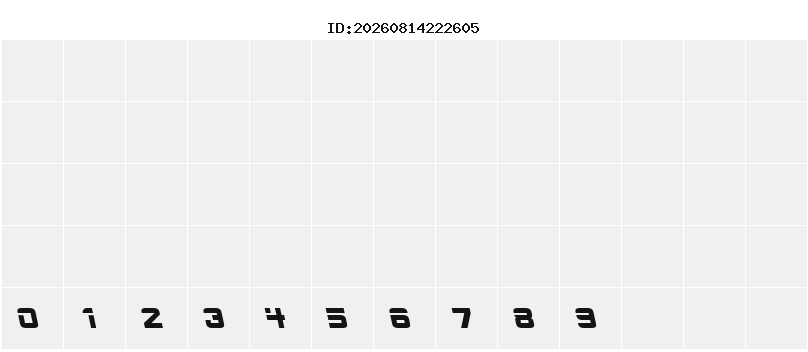
• Font Name: Star Trek Hebrew Italic
• Full Font Name: Star Trek Hebrew Italic
About Star Trek Hebrew Italic.ttf
Star Trek Hebrew Italic.ttf is a modern, elegant sans-serif font designed for ultimate readability and visual harmony. Perfect for branding, headlines, web design, and print materials.